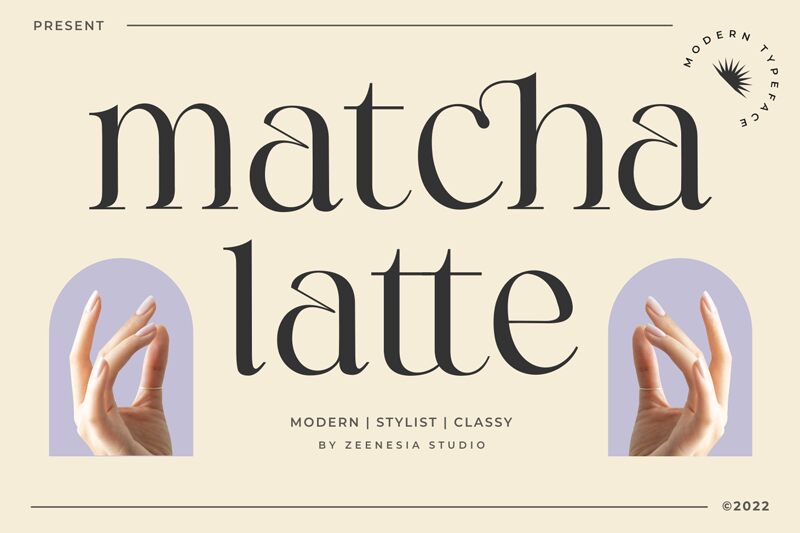
Matcha Latte font is a drop-dead gorgeous serif free font developed by Zeenesia Studio. This breathtaking elegant and refined typeface can instantly capture the viewer's attention and deliver a sophisticated and clever mood. Each character within this classic serif font radiates with traditional influences, yet its timeless appeal remains as fresh as ever!
From resumes, social media posts, branding, and logos all the way to packaging – the matching potential of Matcha Latte is next level. On top of that, you can also use it for websites, applications (apps), advertising, cards, invitations etc…